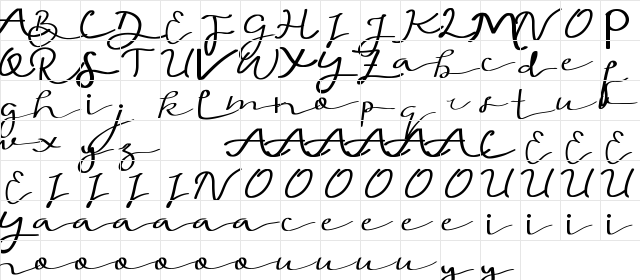
Thuesday Demo Regular
| Foundry | Edric Studio |
| Designer | Suci Anita & Saila nurissalma |
Design Context for Thuesday Demo Typeface
Thuesday Demo is a composed and adaptable typeface that performs quietly and consistently across a wide range of design contexts.